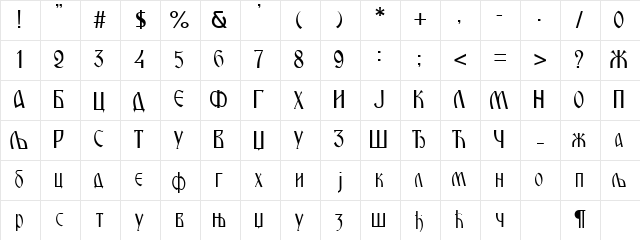
Miroslavljeva Cirilica Normal Free Font
Miroslavljeva Cirilica Normal
Miroslavljeva Cirilica Family
Design Context for Miroslavljeva Cirilica
Miroslavljeva Cirilica is a composed and adaptable typeface that performs quietly and consistently across a wide range of design contexts.